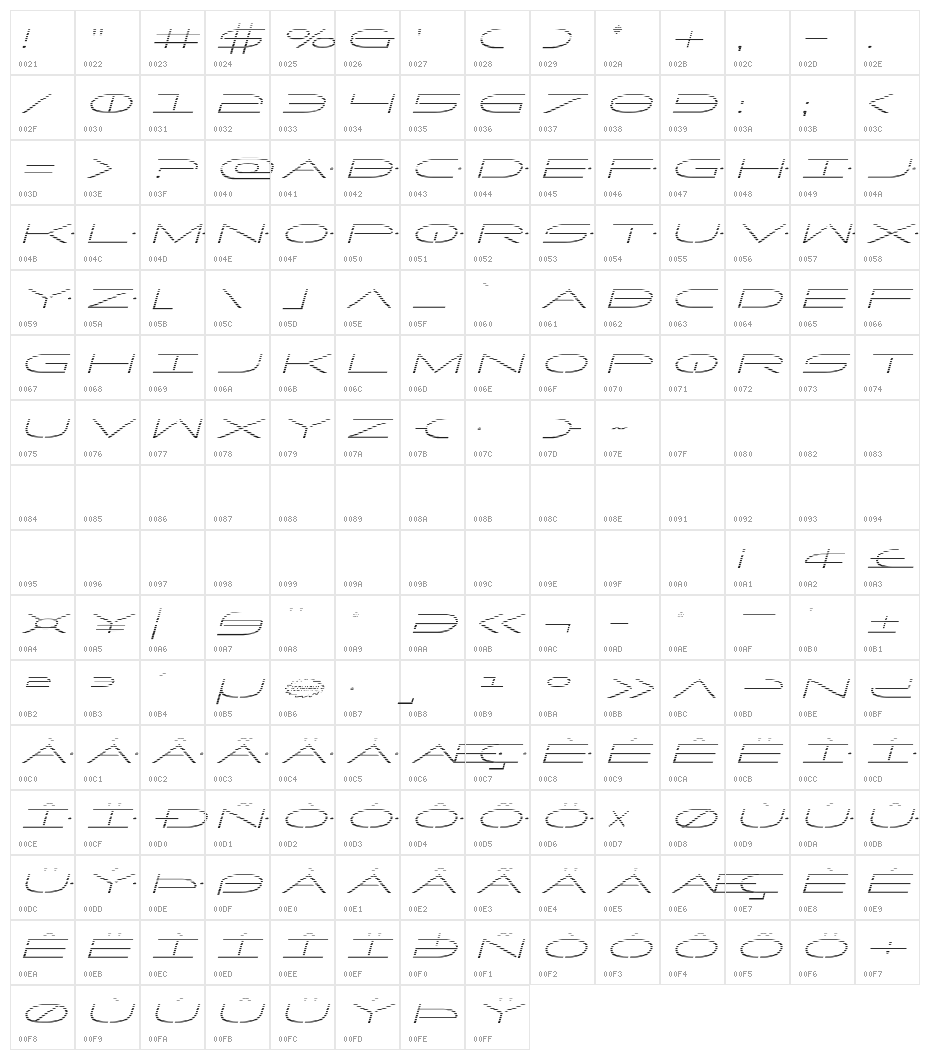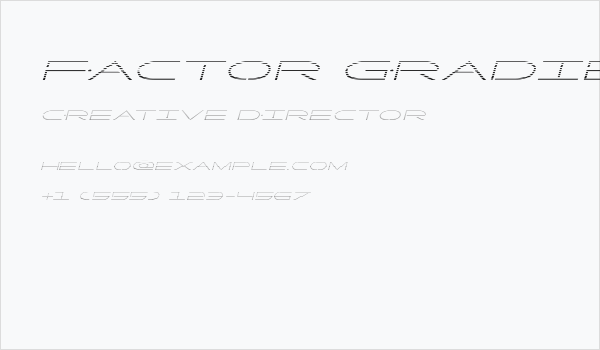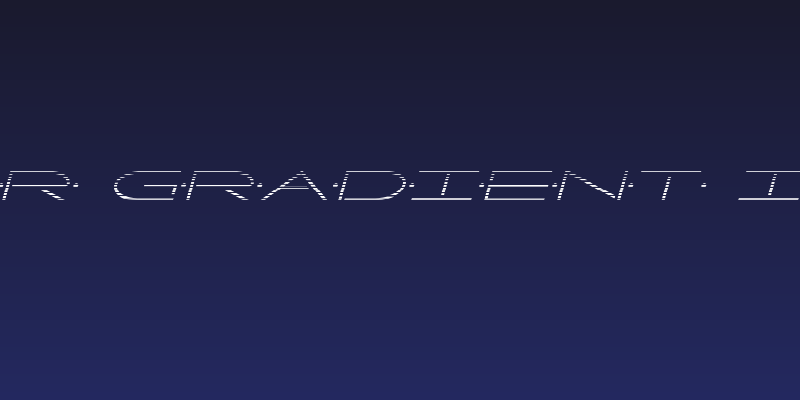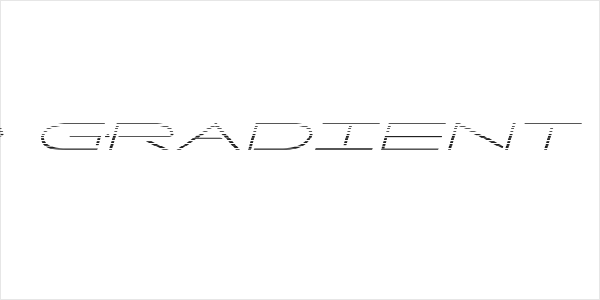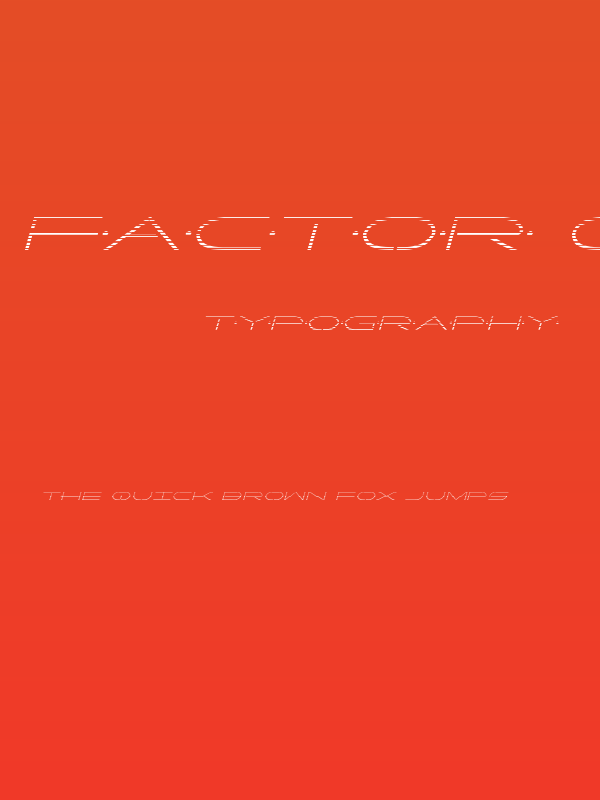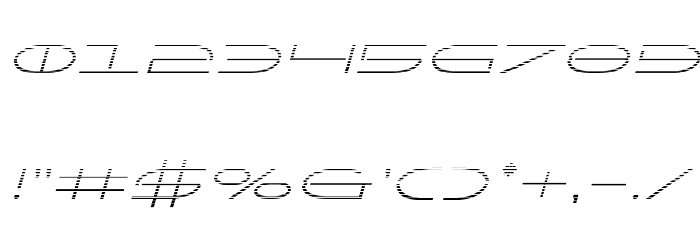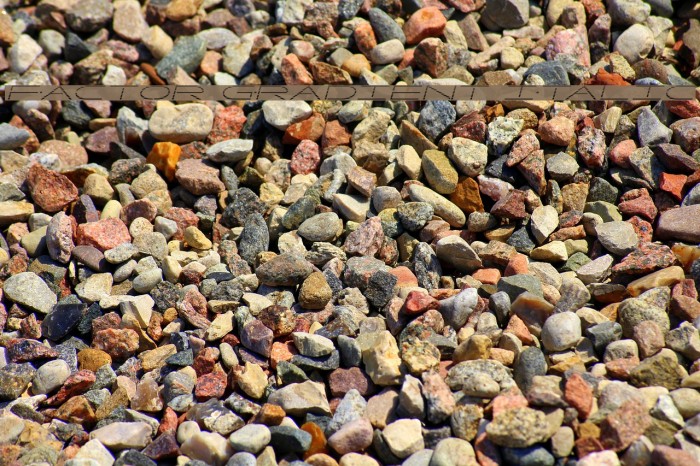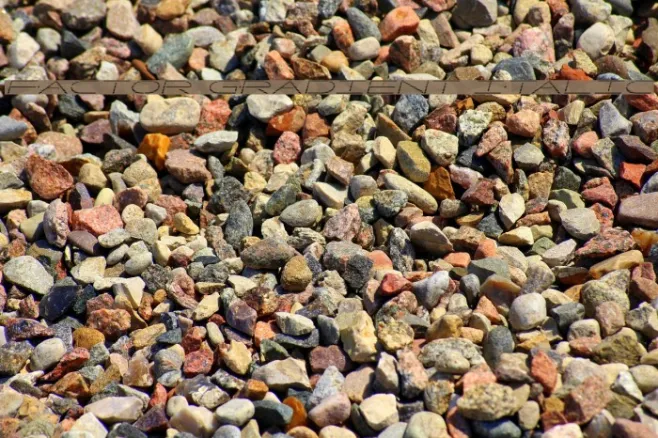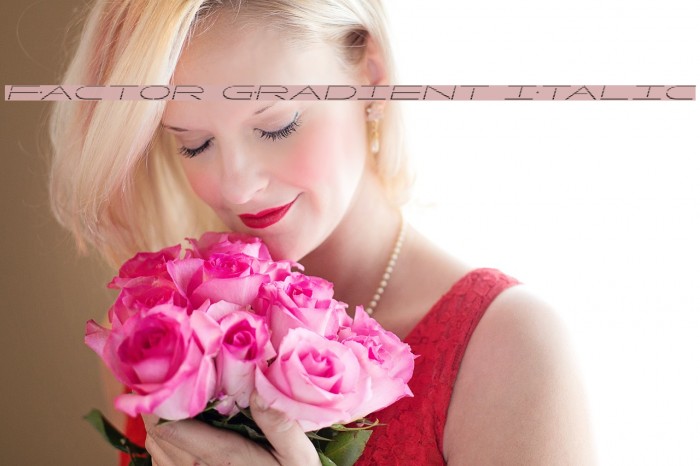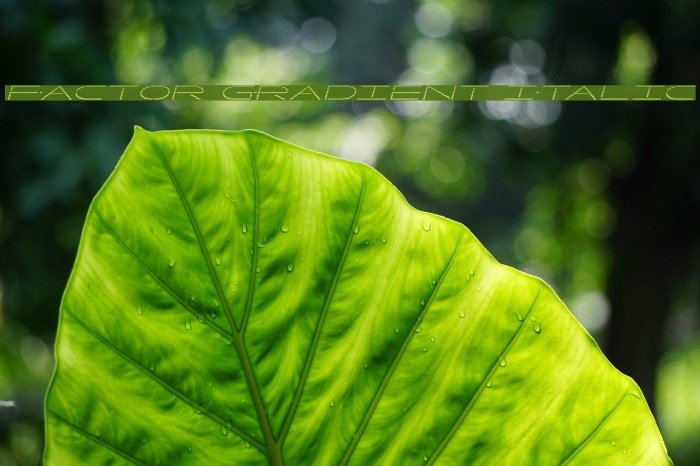
Factor Gradient Italic Font
Factor Gradient Italic Description
This font features a modern and sleek design with a distinct italic slant, giving it a dynamic and forward-moving appearance. The characters are constructed with a gradient effect, creating a sense of depth and movement. The lines are clean and precise, with a futuristic aesthetic that is both stylish and functional. The uppercase and lowercase letters maintain a consistent style, while the numerals and special characters complement the overall design. This font is ideal for projects that require a contemporary and innovative look.
| Overall Style | Modern, Futuristic |
| Use Case | Headlines, Logos, Digital Media |
| Proposed Projects | Ideal for tech branding, futuristic posters, digital media, and innovative product packaging. |